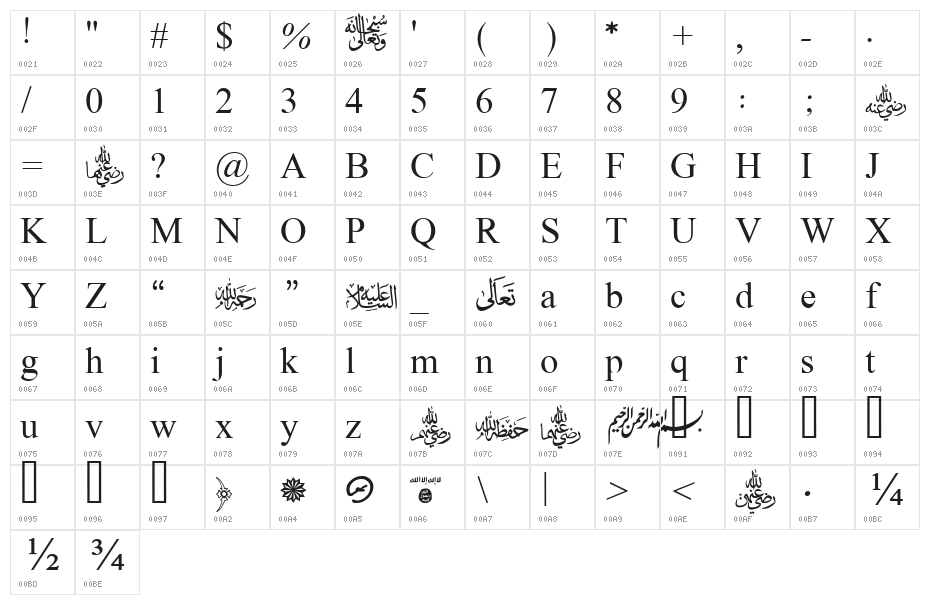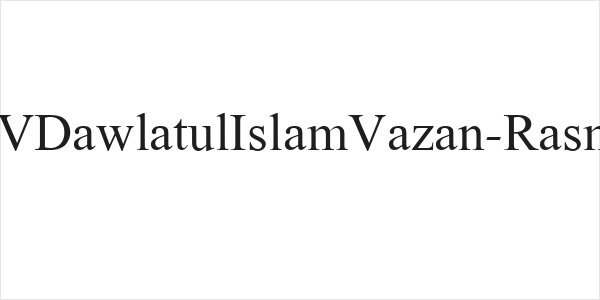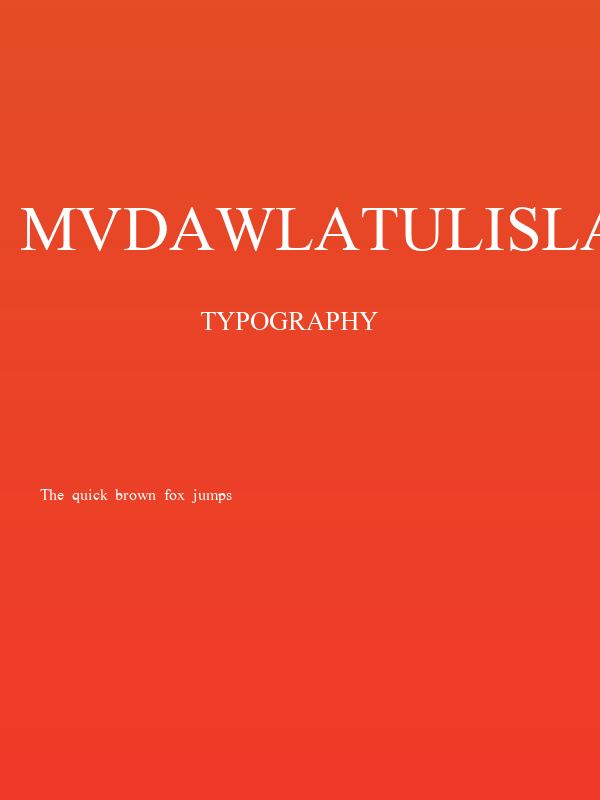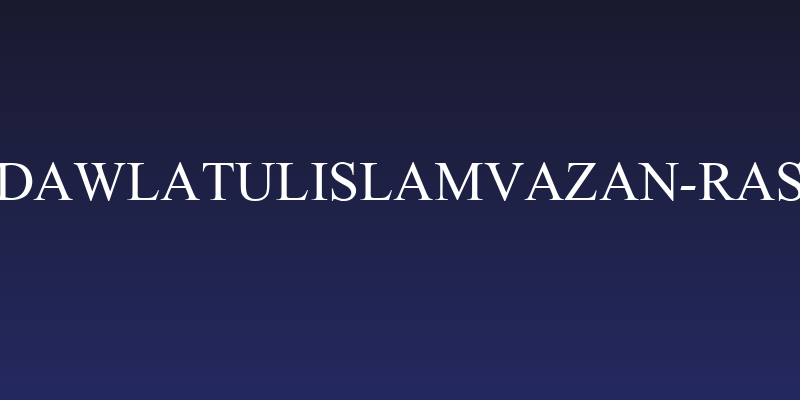
MVDawlatulIslamVazan-Rasmy Font
MVDawlatulIslamVazan-Rasmy Description
This font exhibits a classic serif style with elegant and refined strokes. The uppercase letters are bold and commanding, while the lowercase letters maintain a consistent flow with slight variations in stroke width. The numerals are clear and well-defined, making them easily readable. Special characters are included, adding versatility to the font. The overall design is balanced, with a harmonious blend of traditional and modern elements, making it suitable for a variety of applications.
| Proposed Projects | Ideal for editorial design, book covers, formal invitations, and branding projects requiring a touch of elegance. |